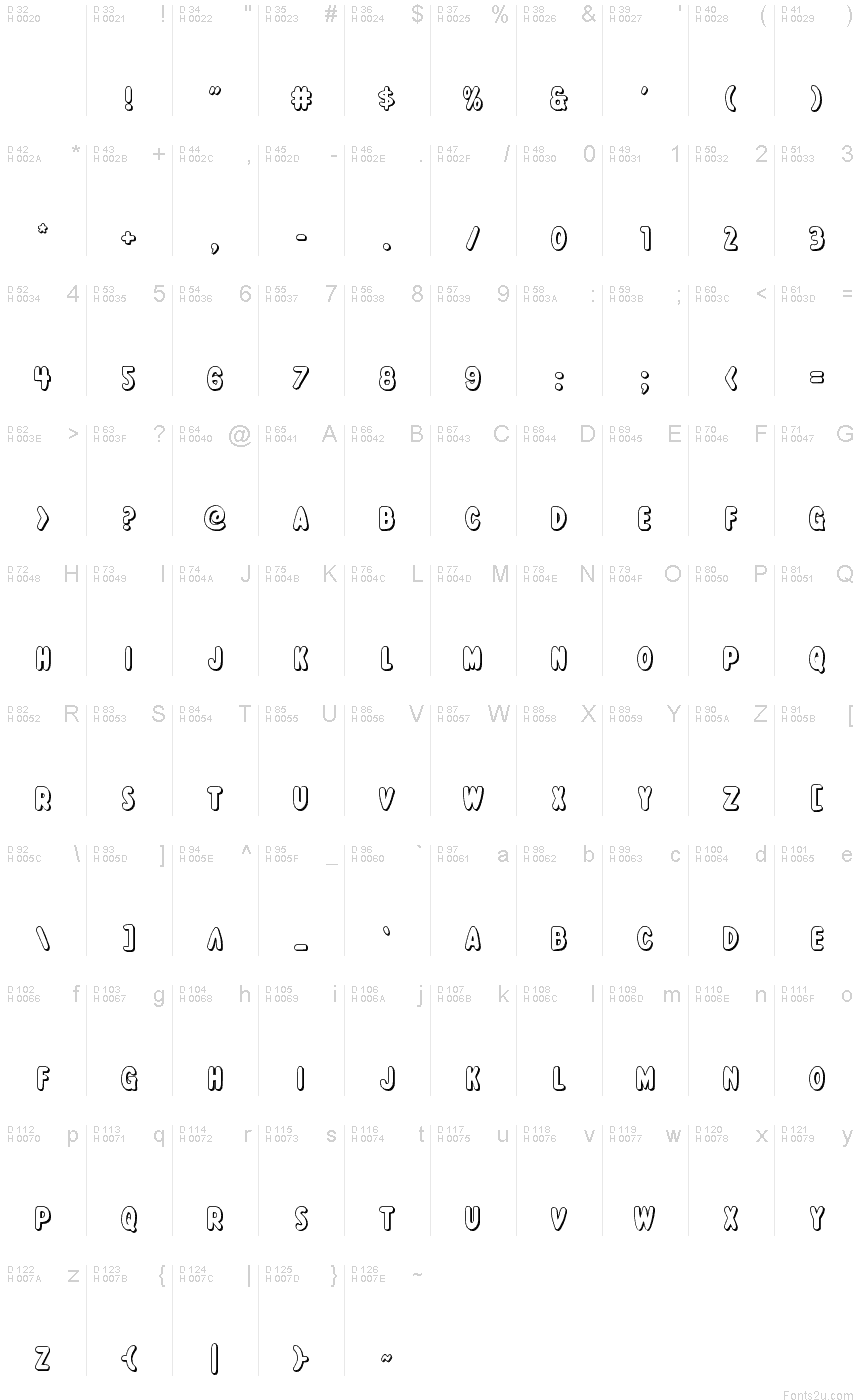
Excelsior Comics 3D by Iconian Fonts is a free comic display font with broad, inflated capitals and a chunky dimensional edge. Its uneven curves give the lettering a cheerful hand-drawn bounce.
Packaging benefits from its toy-like volume, especially on candy boxes, snack labels, and children's products where the rounded shapes can echo mascots and illustrated characters. The same lively structure suits comedy posters, arcade-style game graphics, and children's magazine covers, since the letters can function as part of the artwork rather than neutral captions, and their exaggerated depth gives editorial titles the look of a drawn sound effect lifted from a comic panel.
Excelsior Comics 3D